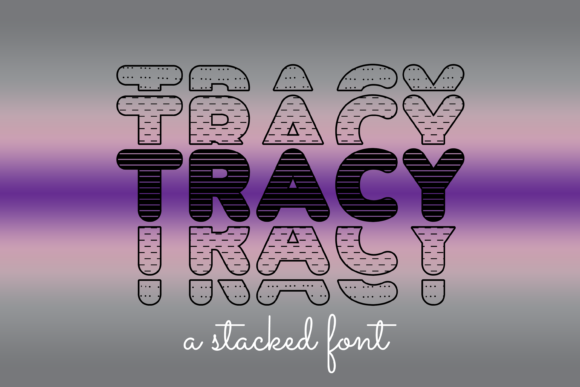
Tracy: A Stylish Font for Creative Expression
When it comes to typography, the right font can make all the difference in a design. Tracy is a unique and versatile font that has captured the attention of designers, artists, and creators across various fields. Known for its clean lines, elegant curves, and modern aesthetic, Tracy offers a refreshing alternative to more traditional typefaces. Whether you're working on a personal project, a business brand, or a creative endeavor, Tracy brings a touch of sophistication that can elevate any visual presentation.
What Makes Tracy Stand Out?
Tracy is more than just a font—it's a design tool that combines functionality with artistic flair. Its character set includes both uppercase and lowercase letters, numbers, and punctuation, making it suitable for a wide range of applications. The font’s structure is balanced and easy to read, even at smaller sizes, which makes it ideal for body text as well as headings.
One of the most appealing aspects of Tracy is its versatility. It works well in both digital and print formats, and its modern look can complement a variety of design styles. From minimalist layouts to bold, eye-catching graphics, Tracy adapts seamlessly to different contexts. This flexibility makes it a popular choice among professionals who need a reliable yet distinctive typeface.
Key Features of Tracy
- Elegant Design: Tracy features smooth curves and consistent stroke weights, giving it a polished and professional appearance.
- High Readability: Despite its stylish look, Tracy maintains excellent legibility, making it suitable for long-form text and short headlines alike.
- Comprehensive Character Set: The font includes a full range of characters, symbols, and special glyphs, ensuring compatibility with multiple languages and use cases.
- Modern Aesthetic: Tracy’s contemporary design aligns with current trends in graphic design, web development, and branding.
Where Can You Use Tracy?
Tracy is an excellent choice for a variety of projects, especially those that require a blend of creativity and clarity. Here are some common applications where Tracy shines:
- Branding and Logos: Tracy can be used to create memorable and visually appealing logos that reflect a brand’s identity.
- Web Design: As a web-safe font, Tracy can enhance the visual appeal of websites, landing pages, and user interfaces without compromising performance.
- Print Materials: From business cards to brochures, Tracy adds a refined touch to printed designs.
- DIY Projects: Crafters and hobbyists often use Tracy to add a personalized and stylish element to handmade items like greeting cards, labels, and banners.
- Marketing Collateral: Tracy is a great option for creating engaging marketing materials such as posters, flyers, and social media graphics.
Its adaptability means that Tracy can be integrated into almost any design project, whether you're looking for a subtle enhancement or a bold statement.
Who Benefits from Using Tracy?
Tracy is particularly useful for individuals and businesses that value style and readability. Here are some groups that may find Tracy beneficial:
- Graphic Designers: Tracy provides a fresh and professional option for creating visual content that stands out.
- Small Business Owners: Entrepreneurs can use Tracy to develop a cohesive brand identity that resonates with their target audience.
- Content Creators: Bloggers, YouTubers, and social media influencers often rely on visually appealing fonts to enhance their content.
- Students and Educators: Tracy can be used in presentations, worksheets, and educational materials to make information more engaging.
- Artists and Makers: Those involved in DIY projects, handmade crafts, or custom art can incorporate Tracy to add a personal and artistic touch.
Whether you're a seasoned professional or a creative enthusiast, Tracy offers a powerful tool for expressing your vision.
Strengths and Considerations
While Tracy is a highly versatile font, it’s important to consider its strengths and limitations when choosing it for a specific project. One of its greatest advantages is its ability to maintain a balance between style and functionality. However, it may not be the best choice for every situation.
For instance, if you’re designing something that requires a more formal or traditional look, Tracy might not fit the desired tone. Similarly, if your project involves a lot of technical or specialized text, you may want to ensure that Tracy supports the necessary characters and symbols.
Real-World Applications of Tracy
Let’s explore a few practical examples of how Tracy can be used in real-life scenarios:
Finally, remember that while Tracy is a powerful tool, it’s just one part of the design process. Combining it with thoughtful design choices will help you achieve the best results.
Whether you're a designer, a business owner, or a creative individual, Tracy offers a stylish and functional solution for a wide range of projects. With its elegant design and versatile application, Tracy is a font that can bring your ideas to life with a touch of class and personality.